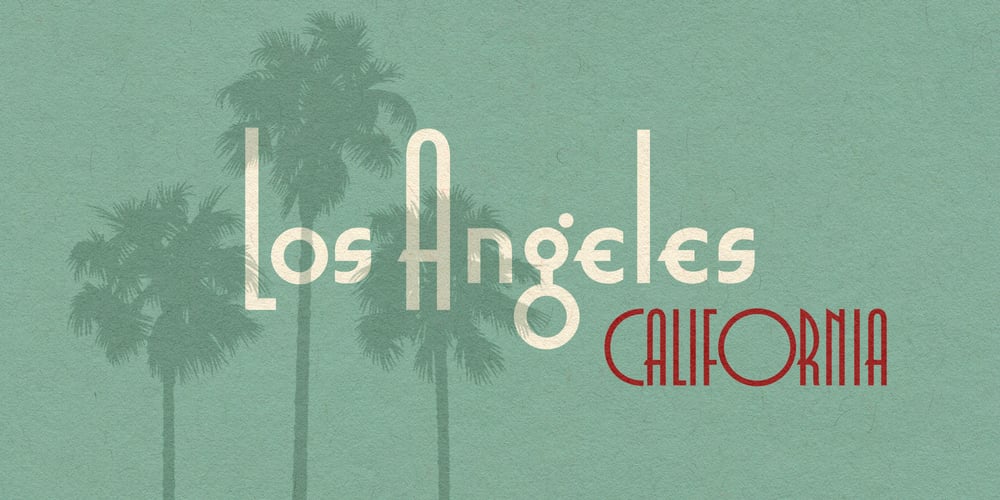
Smart Deco Font Family was designed by Nils Lindstrom and published by Lindstrom Design. Smart Deco contains 1 styles and family package options. A nostalgic font referencing the 1920s and 1930s during the Golden Age of Hollywood, art moderne and the rise of luxury items. Highly geometric with wild variations in glyph widths that demand attention. Smart Deco is a display font with clean simple lines, tall ascenders and expressive Capitals that descend below the baseline. The intention is to create a sleek elegance that symbolizes the sophistication of a bygone era.